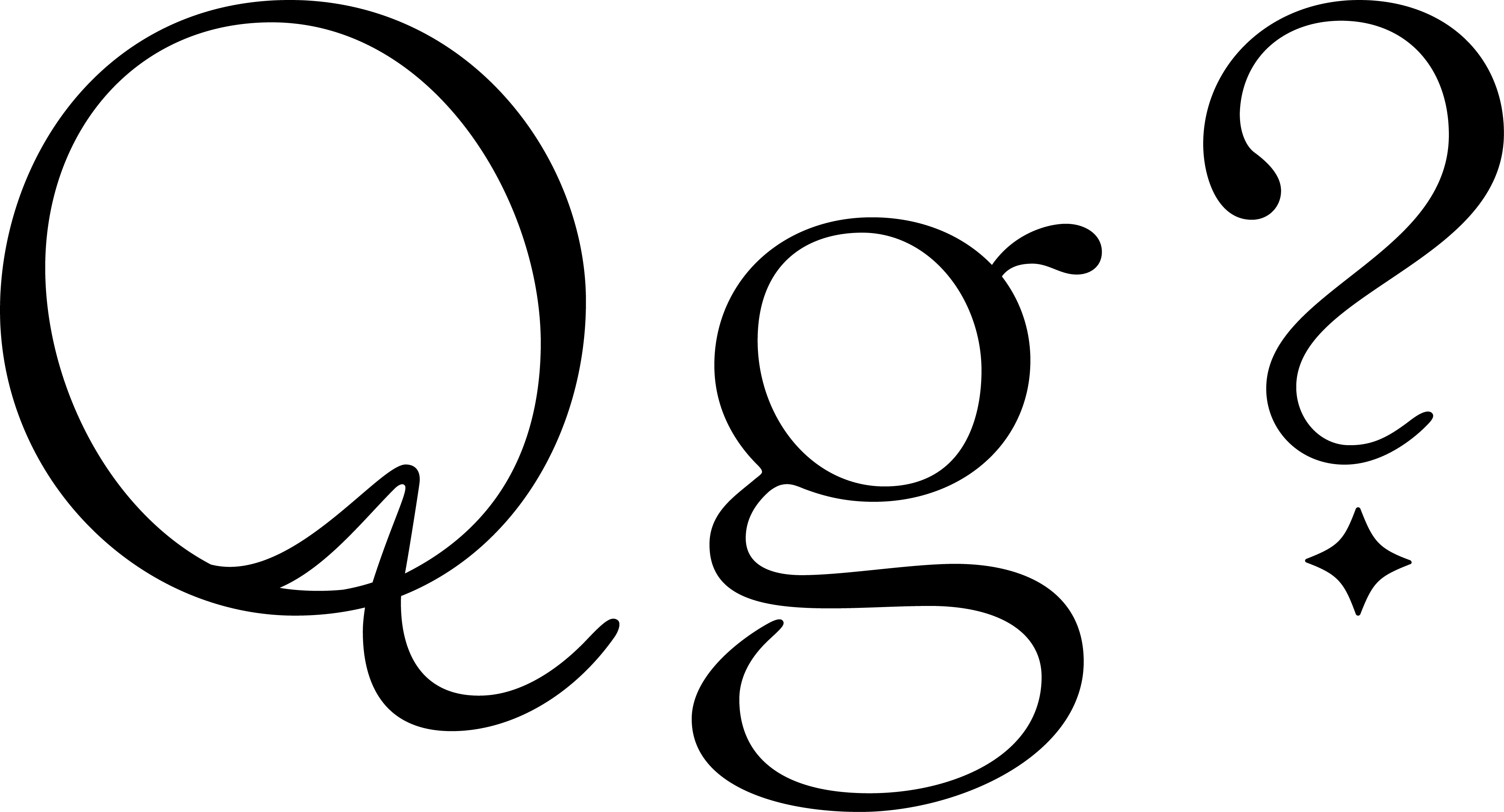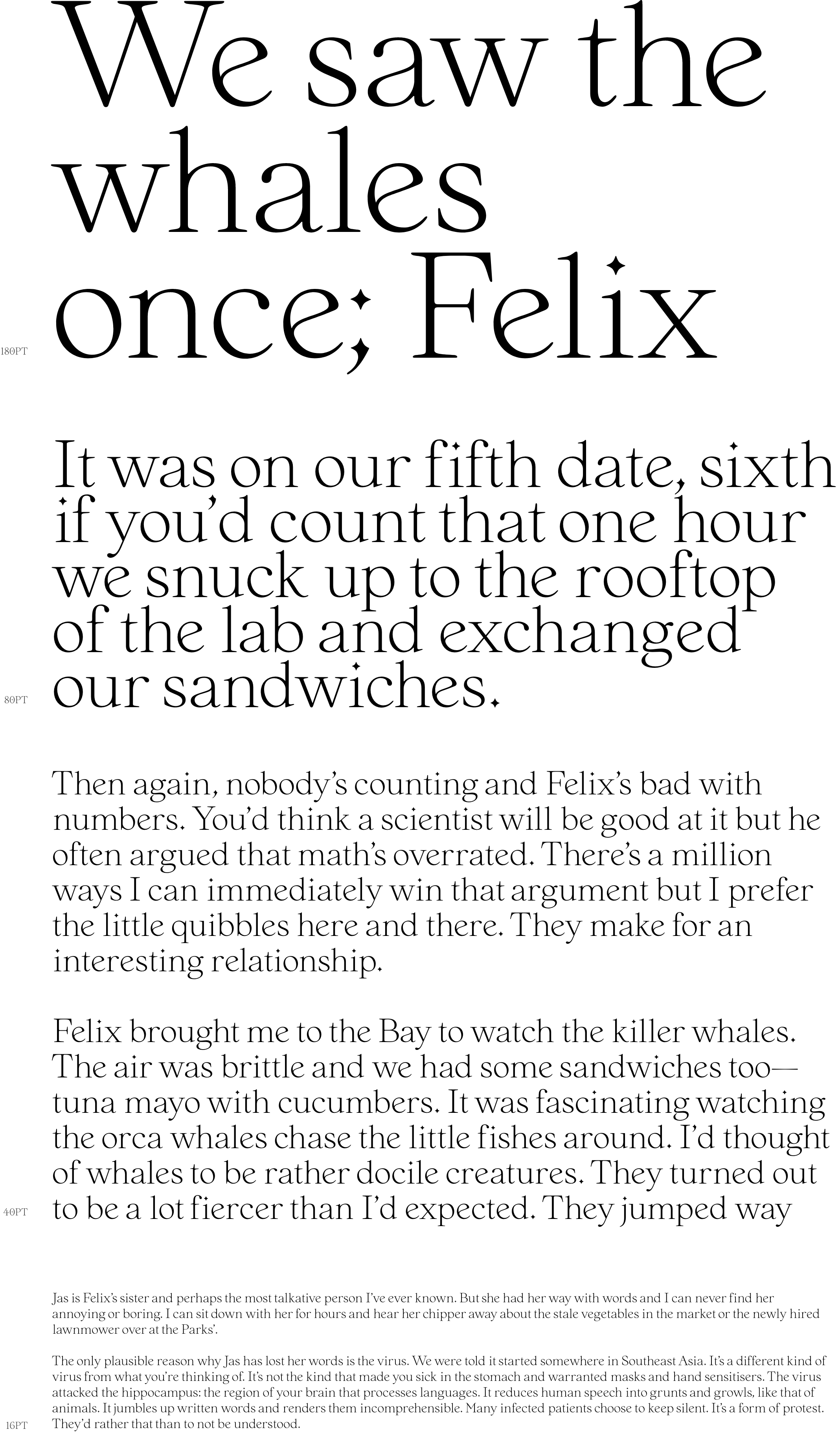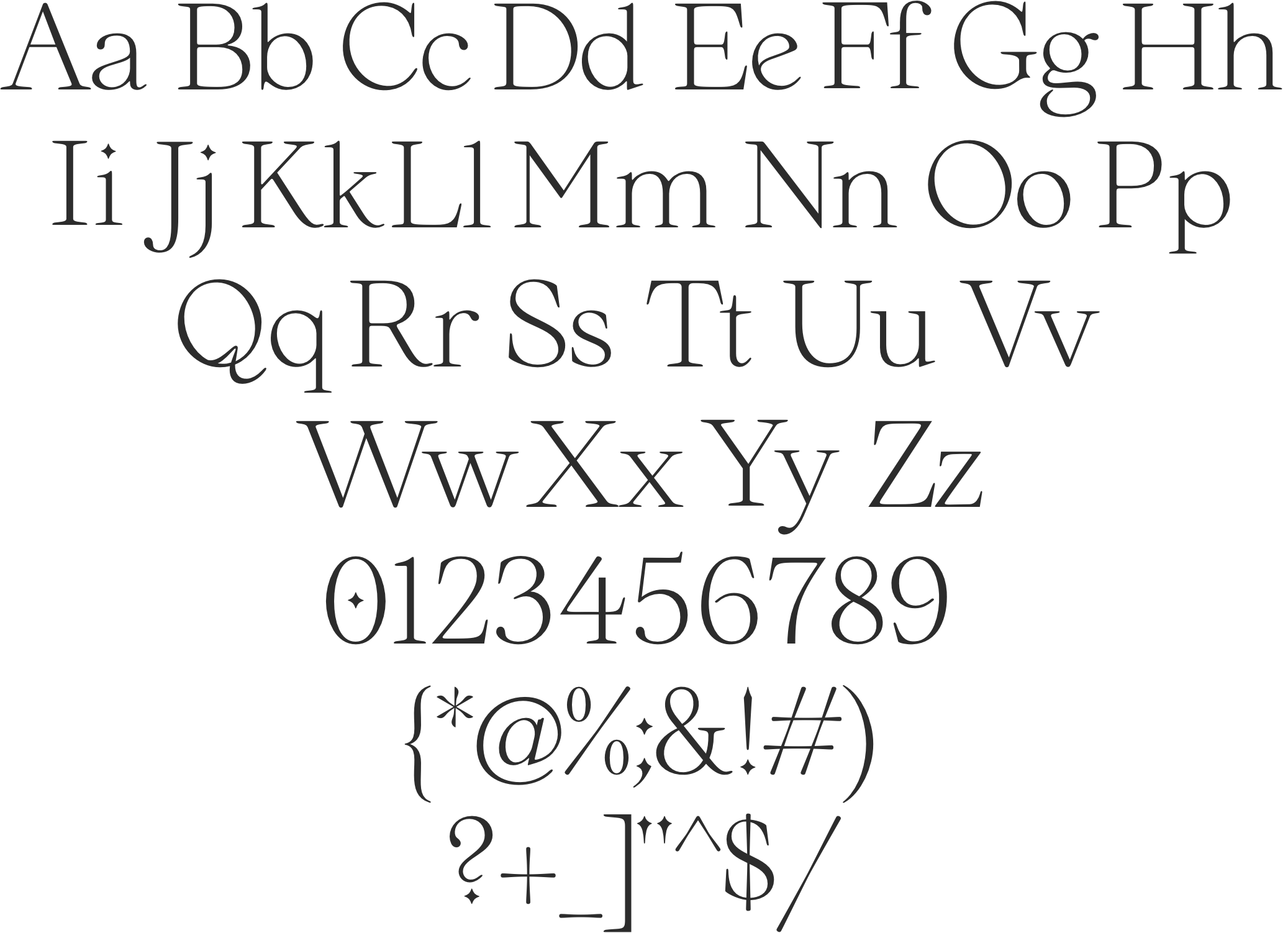
Open-Source Single Weight Display
Nightingale features elegant curves and tapered serifs
An oblique axis makes the letters more rhythmic and expressive
Teardrop terminals give the serif a softer, more elegant feel